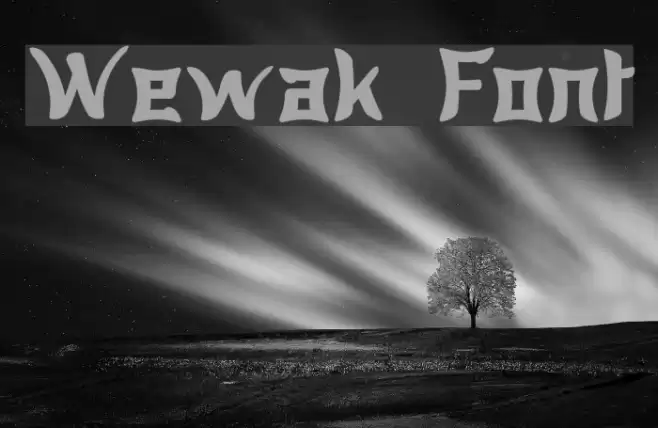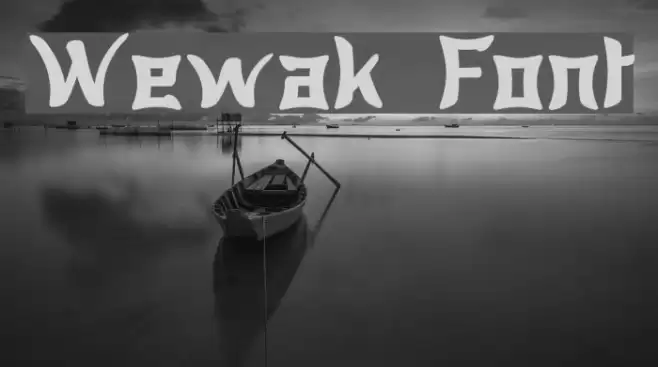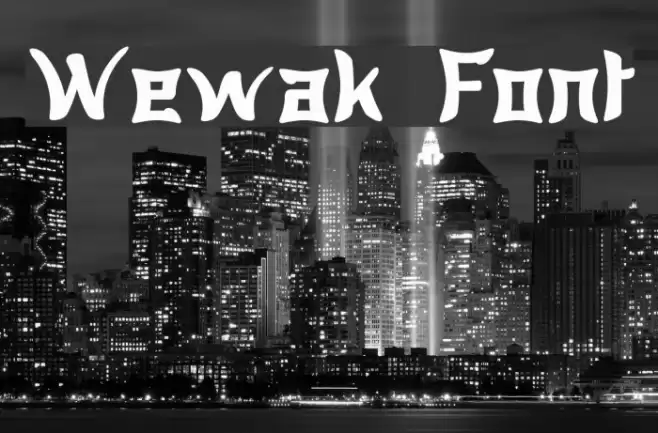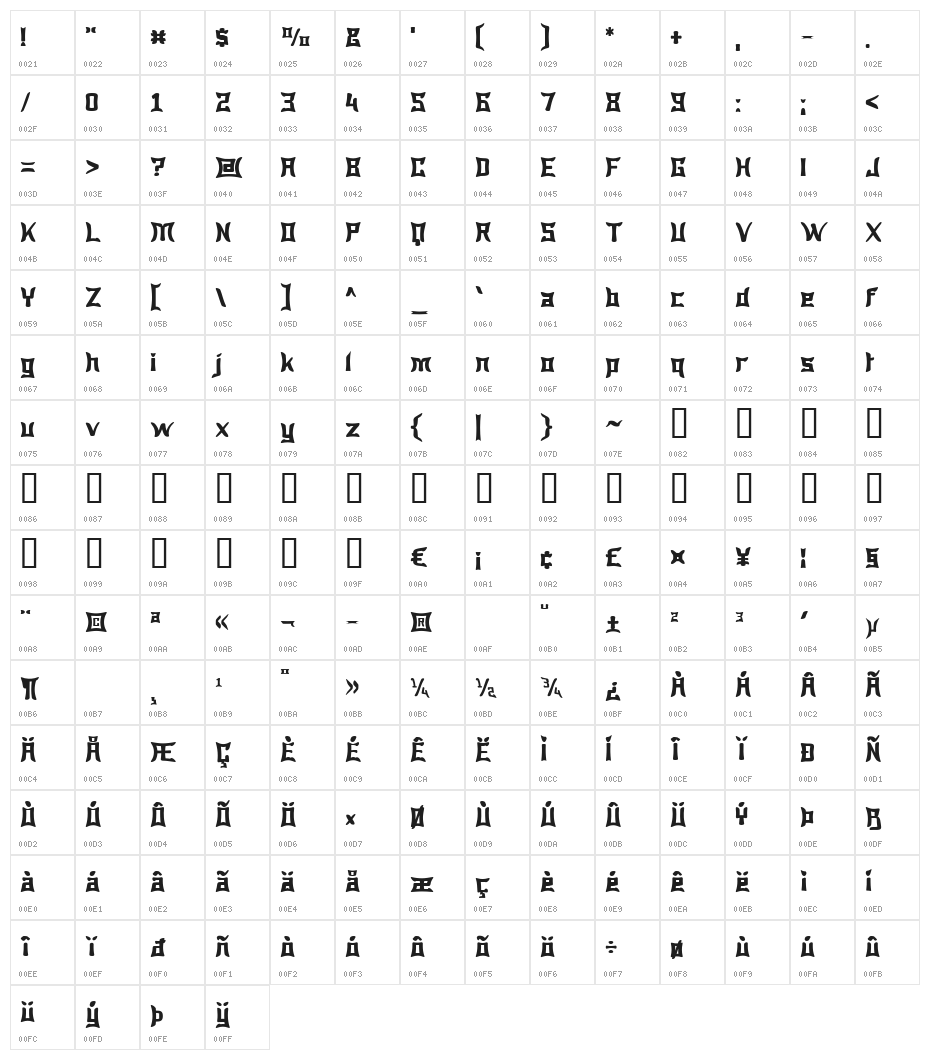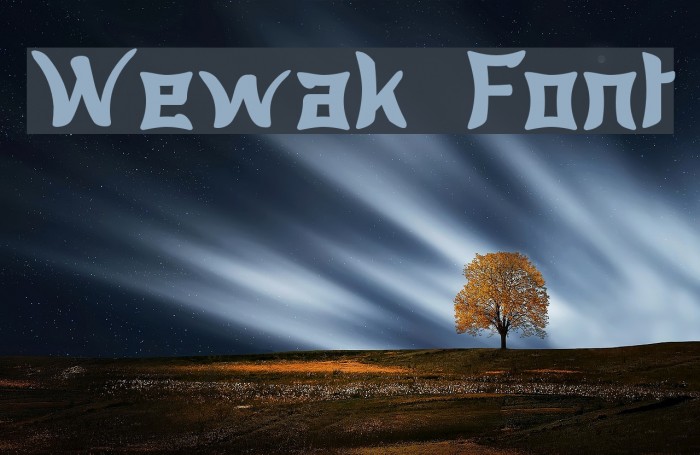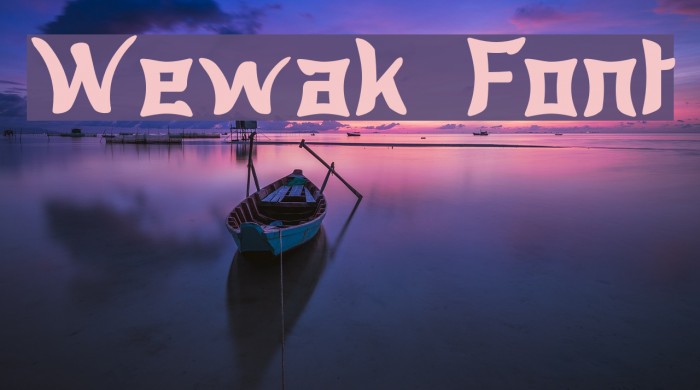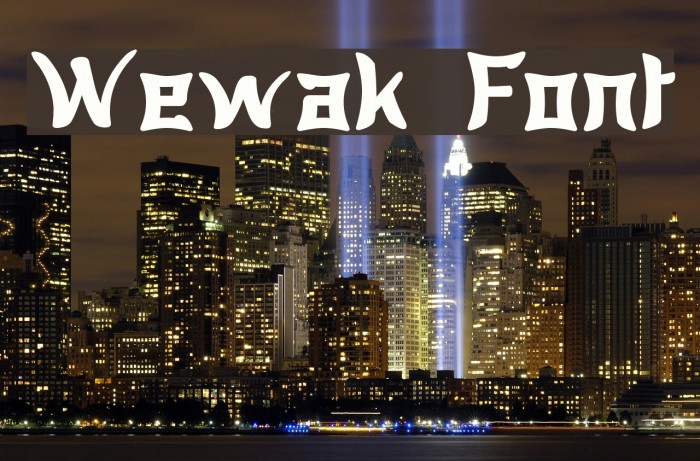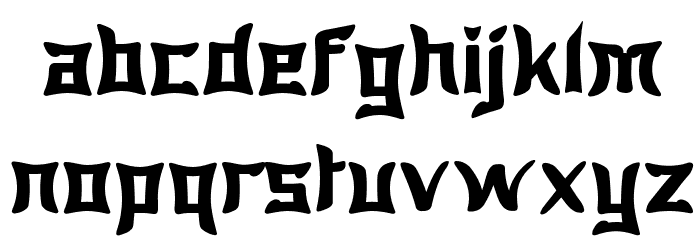
Wewak Font
This font features a bold and striking design with a unique, angular style that gives it a distinctive, edgy appearance. The characters are crafted with sharp, pointed edges and a slightly irregular form, adding to its dynamic and eye-catching look. The uppercase and lowercase letters maintain a consistent style, with the lowercase being slightly more compact. Numbers and special characters follow the same design principles, ensuring uniformity across all glyphs. This font's boldness and unique design make it suitable for projects that require a strong visual impact.
A bold, angular font with a distinctive, edgy style from Asian fonts.
- Proposed Projects: Ideal for posters, album covers, branding, and any project needing a bold statement.